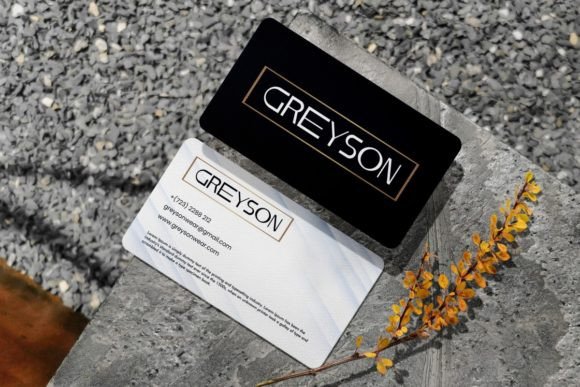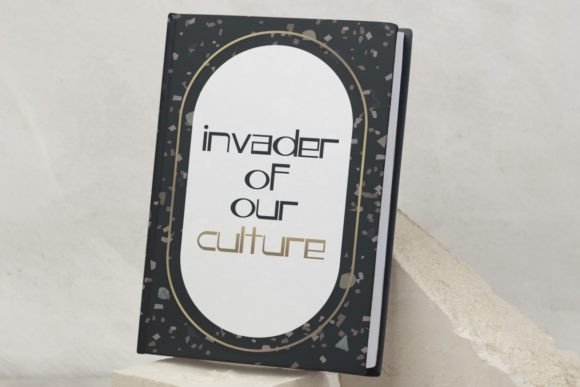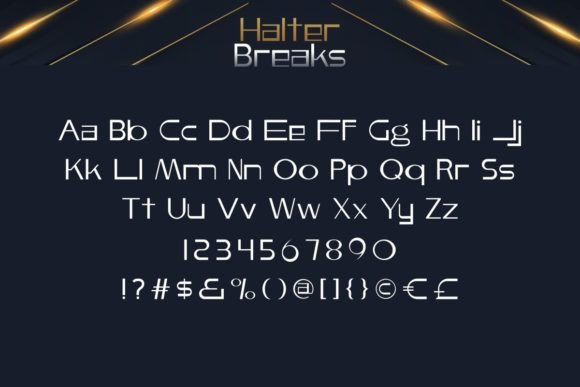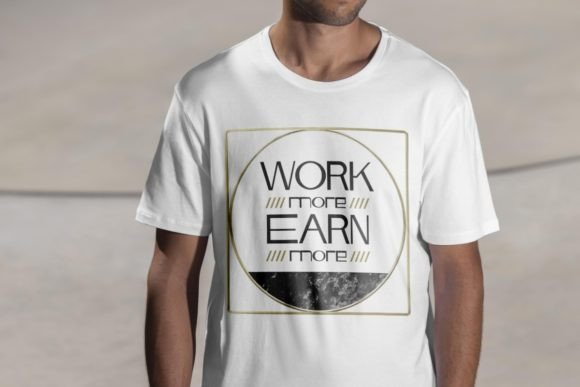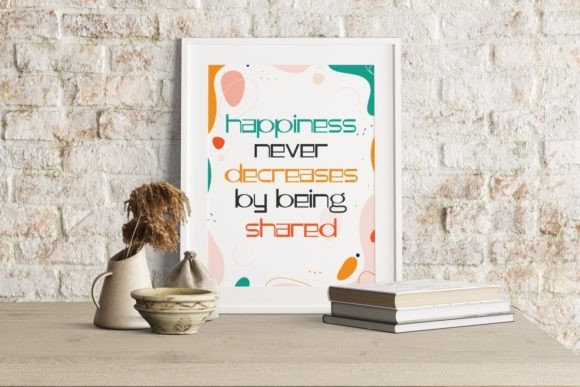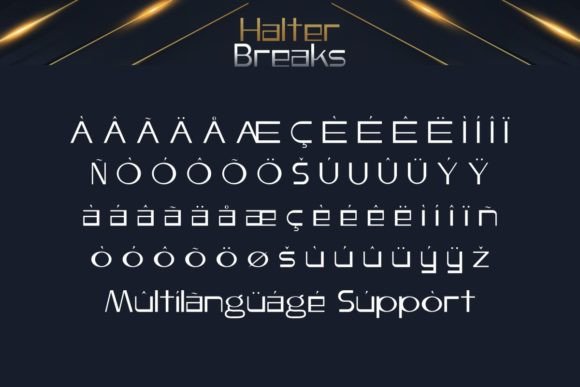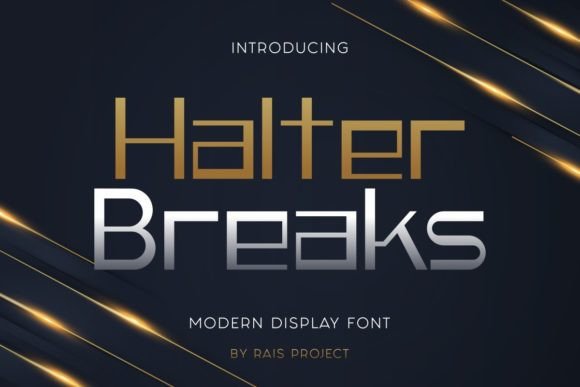
Halter Breaks Font: Elevate Your Designs with a Unique Sans Display Font
In the world of typography, a good font can make all the difference in elevating your design from ordinary to extraordinary. If you’re a designer or crafter looking for a font that can add a touch of uniqueness to your projects, look no further than Halter Breaks Font. This sans display font is designed to make a statement, with bold characters, long lines, and large font sizes that are sure to grab attention.
What is Halter Breaks Font?
Halter Breaks Font is a one-of-a-kind sans display font that is perfect for designers and crafters who want to add a touch of sophistication and elegance to their projects. The font features bold characters with long lines and large font sizes, making it ideal for use in a variety of design applications, from business cards and signage to brand logos and product packaging.
Key Features of Halter Breaks Font
So, what sets Halter Breaks Font apart from other fonts? Here are some of its key features:
- Bold Characters: The font features bold characters that are designed to make a statement. Whether you’re using it for a business card or a poster, the bold characters in Halter Breaks Font are sure to grab attention.
- Long Lines: The font’s long lines add a touch of elegance and sophistication to your designs. They’re perfect for creating a sense of continuity and flow in your projects.
- Large Font Sizes: Halter Breaks Font is designed to be used at large font sizes, making it perfect for signage, posters, and other applications where you want to make a big impact.
Uses for Halter Breaks Font
So, what can you use Halter Breaks Font for? The possibilities are endless! Here are some ideas to get you started:
- Business Cards: Use Halter Breaks Font to create bold and eye-catching business cards that will help you stand out from the crowd.
- Signage: The font’s bold characters and large font sizes make it perfect for use in signage, whether you’re creating a sign for a store, restaurant, or event.
- Brand Logos: Halter Breaks Font is a great choice for brand logos, as it’s bold, elegant, and sure to make a statement.
- Labels: Use the font to create custom labels for your products or packaging.
- Custom Design: Halter Breaks Font is perfect for custom design projects, whether you’re creating a one-of-a-kind piece of art or a unique design for a client.
- Product Packaging: The font’s bold characters and elegant lines make it a great choice for product packaging, whether you’re creating a label or a custom package design.
- Posters: Halter Breaks Font is perfect for creating bold and eye-catching posters that will grab attention.
- Web Pages: Use the font to add a touch of elegance and sophistication to your web pages.
- Quotes: The font’s bold characters and elegant lines make it perfect for creating inspiring and motivational quotes.
Tips for Using Halter Breaks Font
Here are some tips for getting the most out of Halter Breaks Font:
- Use it boldly: Halter Breaks Font is designed to be used boldly, so don’t be afraid to experiment with large font sizes and bold colors.
- Experiment with different colors: The font’s bold characters and elegant lines look great in a variety of colors, so don’t be afraid to experiment and find the perfect color for your design.
- Pair it with other fonts: Halter Breaks Font pairs well with a variety of other fonts, so feel free to experiment with different font combinations to find the perfect look for your design.
In conclusion, Halter Breaks Font is a unique and versatile sans display font that is perfect for designers and crafters who want to add a touch of elegance and sophistication to their projects. With its bold characters, long lines, and large font sizes, it’s ideal for use in a variety of design applications, from business cards and signage to brand logos and product packaging. So why wait? Download Halter Breaks Font today and start elevating your designs to the next level!